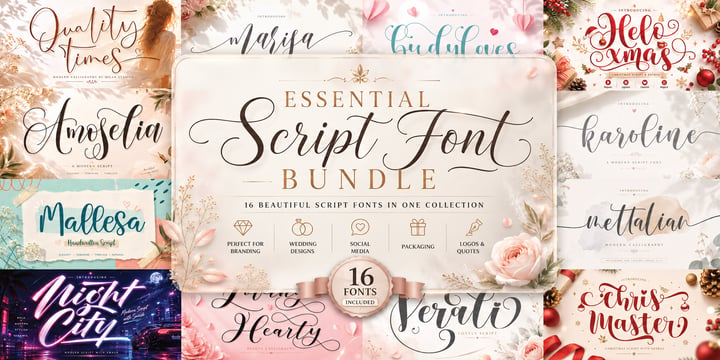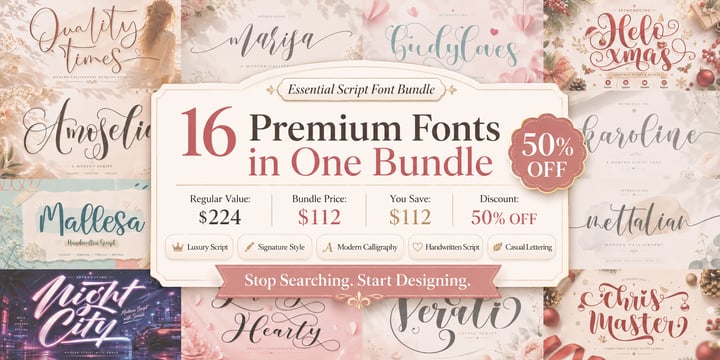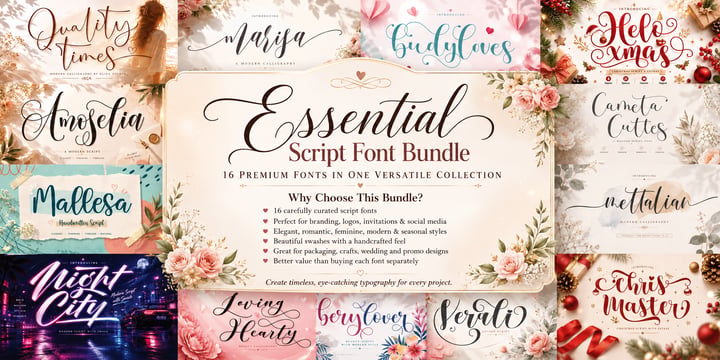
Essential Script Font Bundle
Introducing the Ultimate Script Font Bundle — a carefully curated collection of premium handwritten and script fonts designed to elevate your creative projects.
Whether you're creating logos, branding, packaging, wedding invitations, social media graphics, product labels, quotes, or marketing materials, this bundle provides versatile script fonts that bring elegance, personality, and authenticity to every design.
Inside this collection, you'll find a variety of styles ranging from modern signatures and luxury calligraphy to casual handwritten lettering, making it easy to find the perfect font for any project.
Perfect for:
• Branding & Logo Design
• Packaging Design
• Wedding Invitations
• Social Media Content
• Product Labels
• Business Cards
• Website Headers
• Quotes & Print Design
• Merchandise & Craft Projects
Why You'll Love This Bundle:
✓ Premium-quality script fonts
✓ Versatile styles for multiple design needs
Create stunning designs with confidence and add a professional handwritten touch to every project.